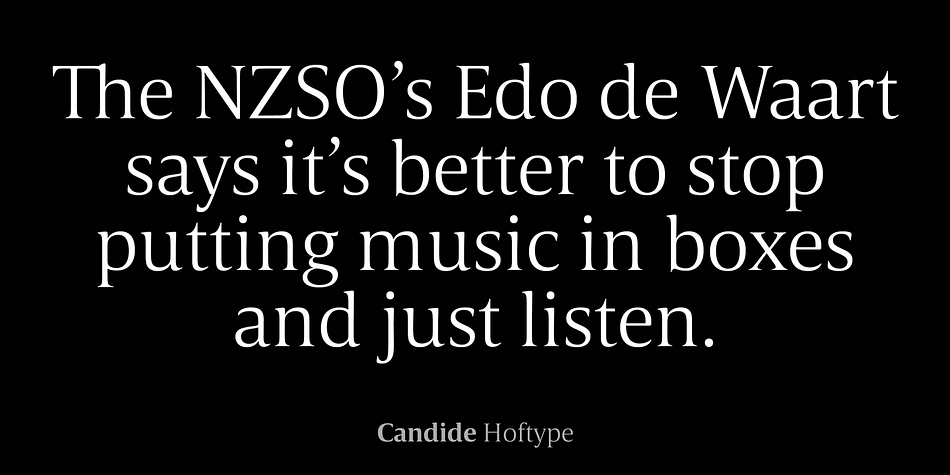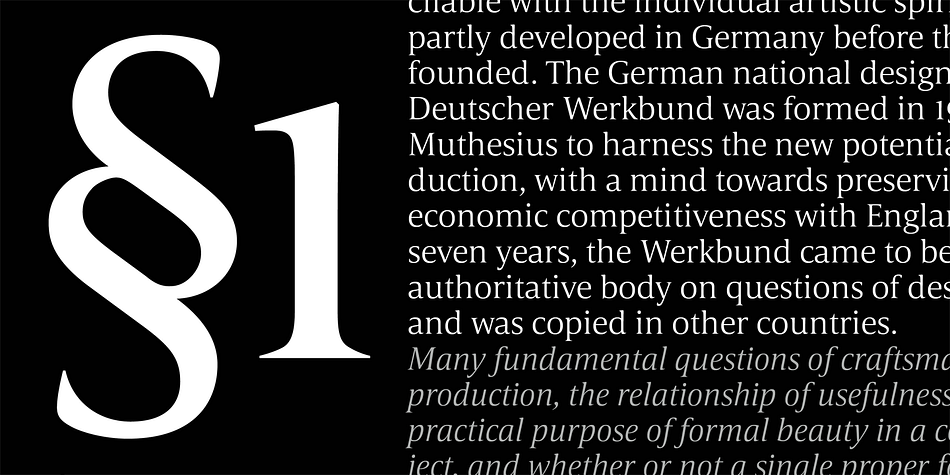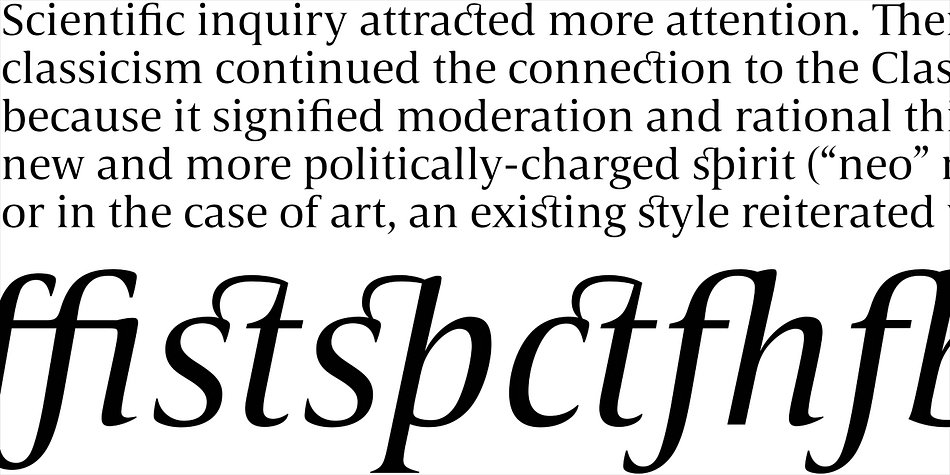
Candide
Designed by Dieter Hofrichter, Candide is a serif font family. This typeface has sixteen styles and was published by Hoftype.
Candide is a neoclassical face for editorial, magazine and newspaper applications. It reflects classical archetypes and shows an elegant and sophisticated appearance.
The Candide family consists of 16 styles. It comes in OpenType format and provides an extended language support. All weights contain standard and discretionary ligatures, proportional lining figures, tabular lining figures, proportional old style figures, lining old style figures, matching currency symbols, fraction- and scientific numerals, matching arrows and alternative characters.